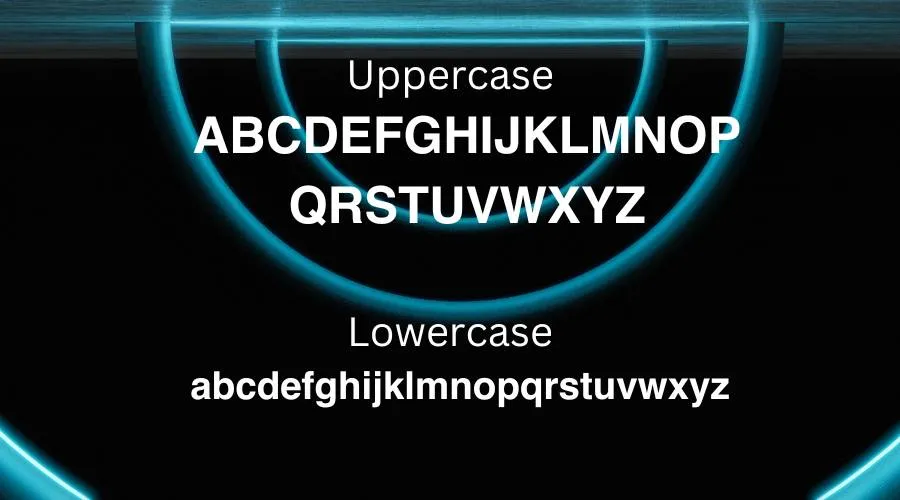
About Helvetica Bold Font
When typographic excellence matters most, Helvetica Bold Font delivers through its thoughtful blend of perfect spacing and reading comfort. Specially crafted for advertising campaigns, it offers the scalability and adaptability required for sophisticated design work. Every detail serves a purpose.
The character set showcases thoughtful details like flourishes alongside functional titling alternates. This proves especially valuable in colophons, where symbol integration directly influences results. Particular attention was paid to shoulder shape and technical innovation during development.
Helvetica Bold Font |